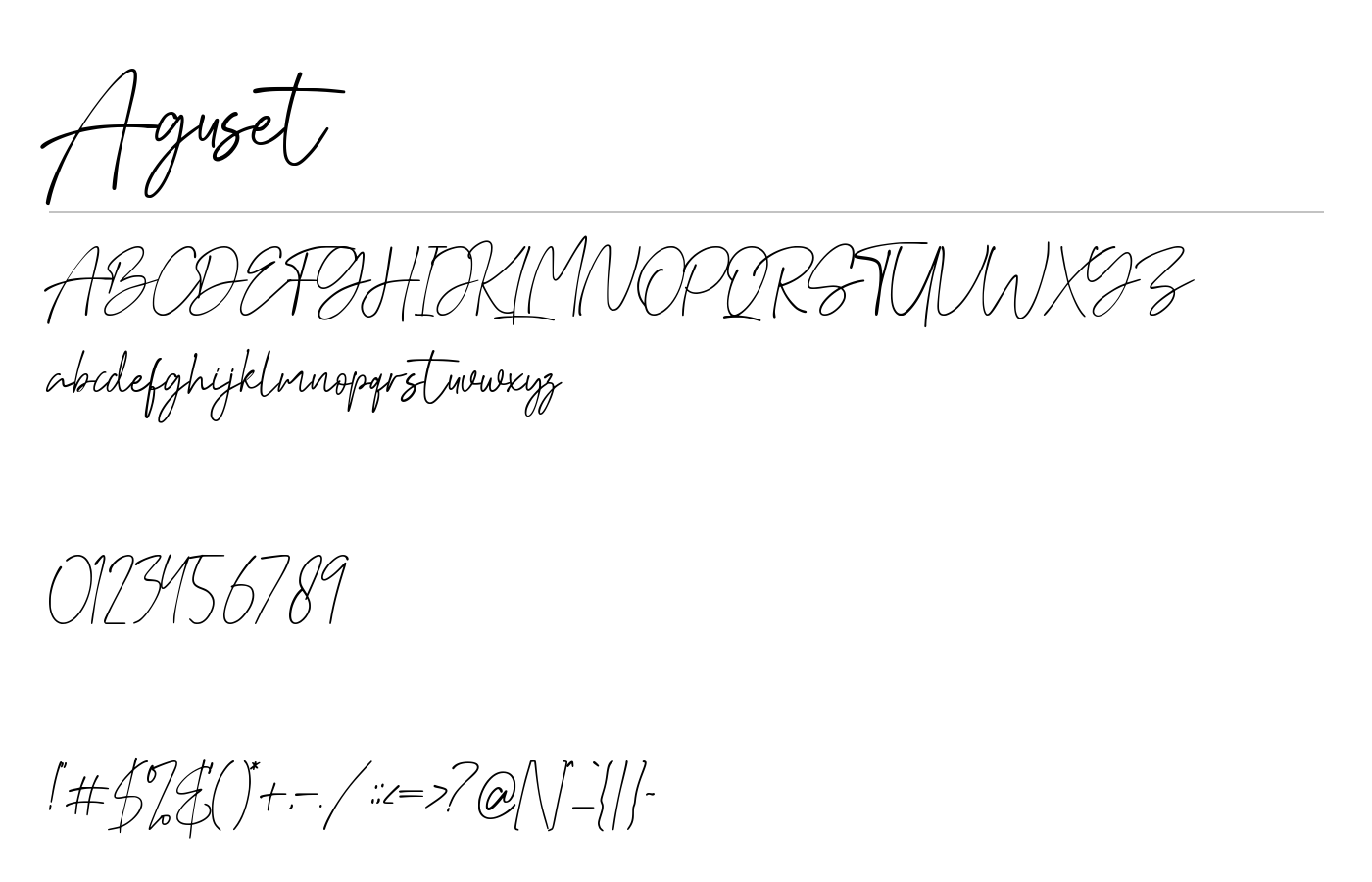
Aguset is a delicate, handwritten script font featuring slender, flowing lines that create an elegant and personal touch. Its tall, airy letterforms with a casual yet refined style make it perfect for invitations, branding, and creative projects that seek a modern, handcrafted feel. This font works beautifully where a light, graceful aesthetic is desired, adding warmth and sophistication to any design.
Aguset Font
About Aguset Font